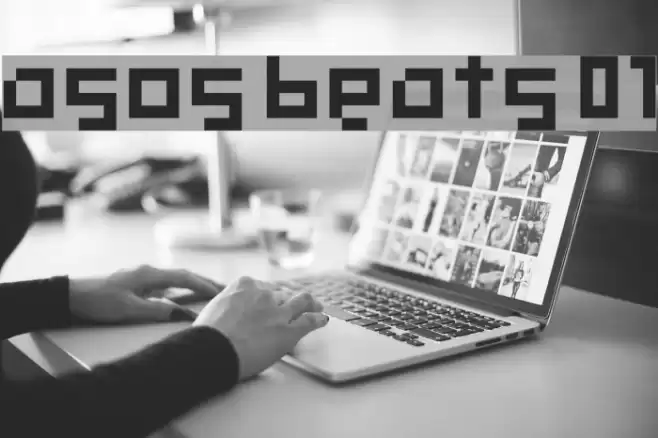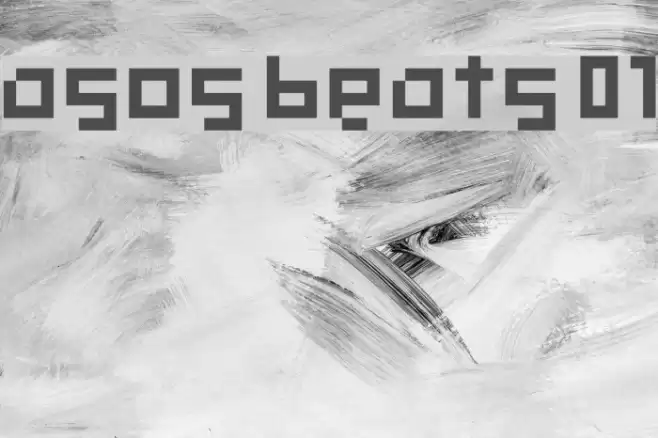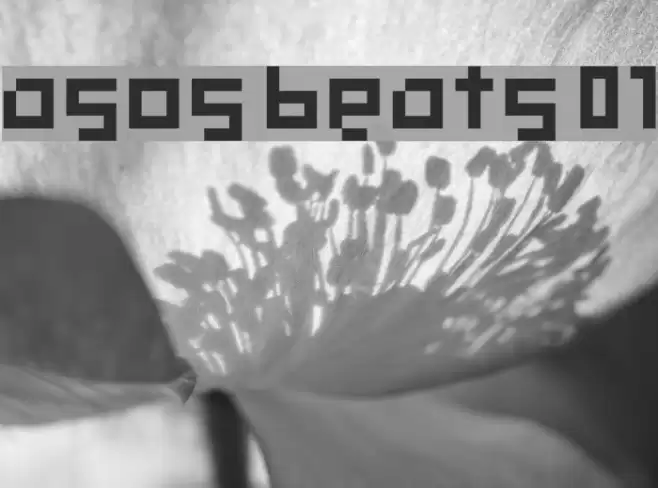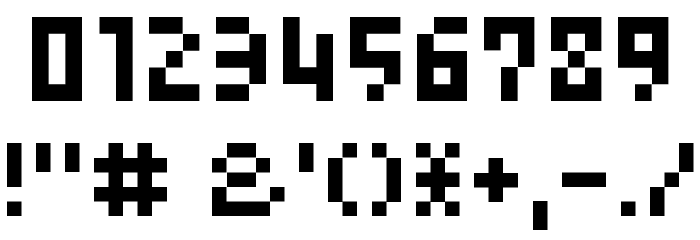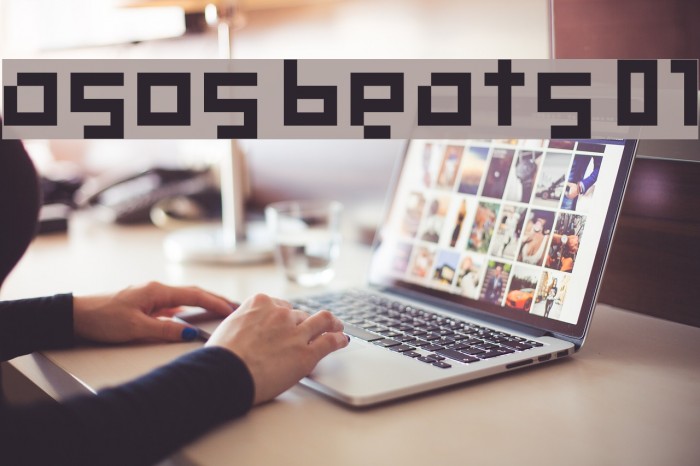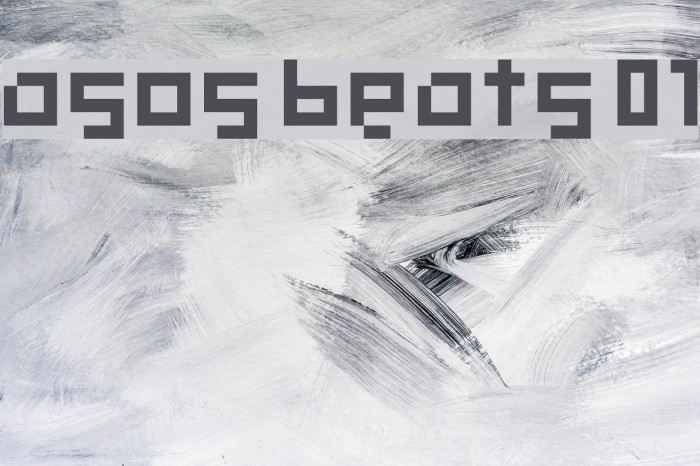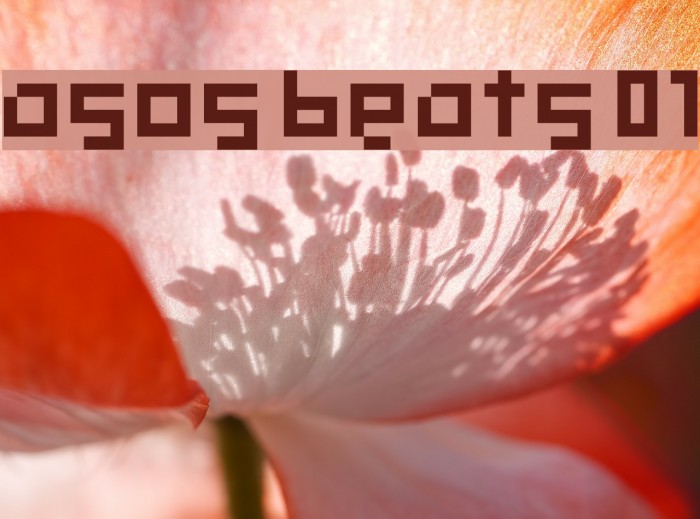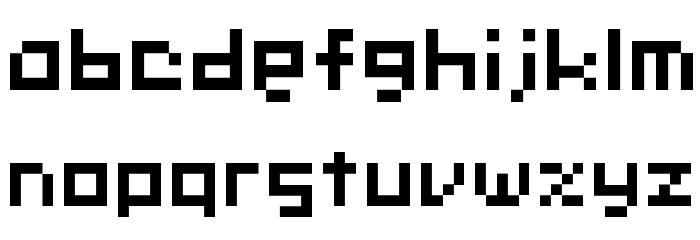
asos beats 01 Font
asos beats 01 Description
This font features a bold, pixelated design reminiscent of classic arcade games and early digital displays. Each character is constructed with a grid-like structure, giving it a blocky and geometric appearance. The uppercase and lowercase letters maintain a consistent height, contributing to a uniform look. The numerals and special characters follow the same pixelated style, ensuring cohesion across all elements. This font's retro aesthetic is perfect for projects that aim to evoke nostalgia or a tech-inspired theme.
A bold, pixelated font with a retro, arcade-inspired design from Uncategorized fonts.
- Proposed Projects: Ideal for video game graphics, retro-themed posters, digital art projects, and tech-related branding.
- Overall Style: Retro